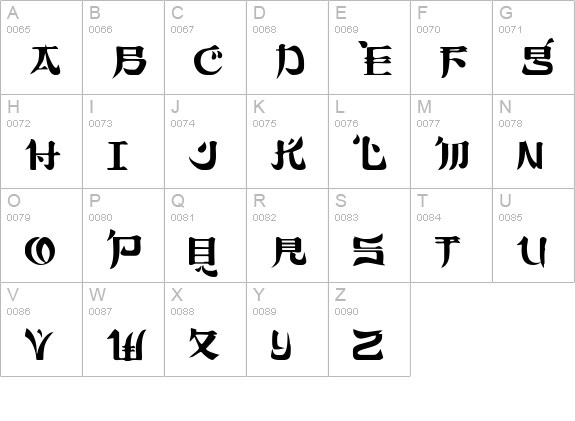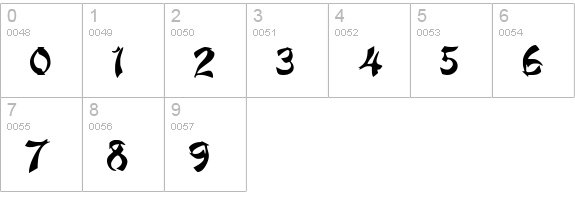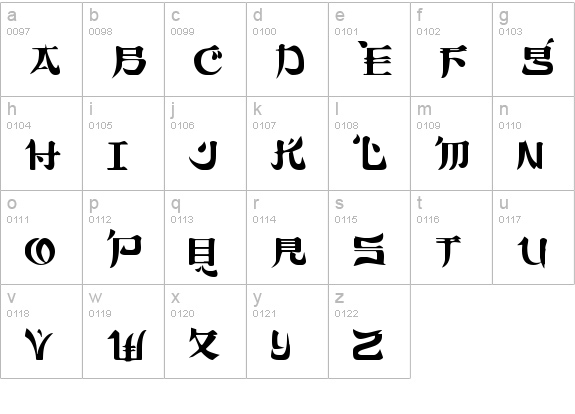
TokyoCaps Font Details
Introducing TokyoCaps font, a stunning display typeface that effortlessly combines elegance with a modern edge. Designed with attention to detail and precision, this font is perfect for creating eye-catching headlines, logos, and branding materials. TokyoCaps font showcases a harmonious blend of clean lines and bold shapes, resulting in a powerful and dynamic visual impact. Its intricate letterforms exude a sense of sophistication and professionalism, making it a versatile choice for a wide range of design projects. What sets TokyoCaps font apart is its versatility and adaptability. Whether you're aiming for a sleek and minimalistic look or a bold and vibrant design, this font can effortlessly adapt to your creative vision. Its bold strokes and striking presence command attention, ensuring that your message will be conveyed with confidence and impact. And the best part? TokyoCaps font is available for free! You can easily download this exceptional font at FontsMarket.com, a trusted source for high-quality fonts. By making TokyoCaps font freely available, we aim to empower designers and creatives to explore their artistic boundaries without any constraints. So, if you're looking to elevate your designs and make a lasting impression, don't miss out on the opportunity to add TokyoCaps font to your font collection. Download it today at FontsMarket.com and unlock a world of design possibilities.